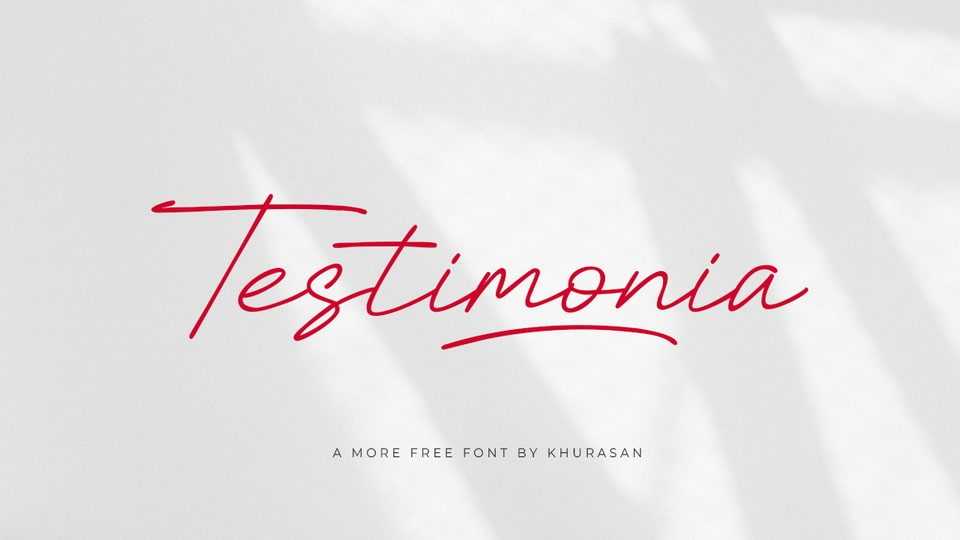
Download Testimonia font, a casual signature style font that effortlessly blends a flowing cursive with legibility. It is perfect for evoking a sense of authenticity for various branding, marketing, and creative projects where a personal touch is desired.